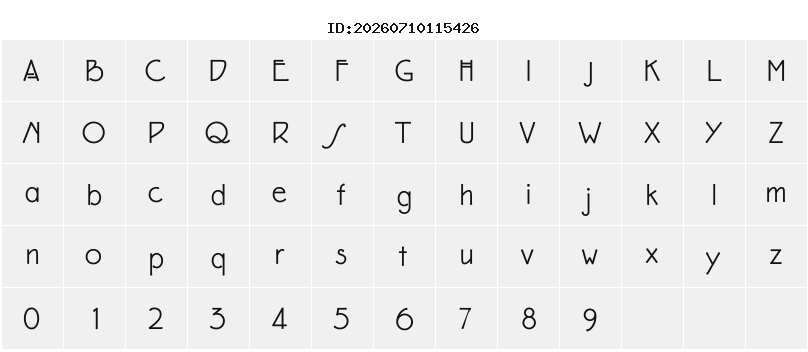
EaglefeatherVlbold Preview
• Font Name: EaglefeatherVlbold
About EaglefeatherVlbold.ttf
EaglefeatherVlbold.ttf is a modern, elegant sans-serif font designed for ultimate readability and visual harmony. Perfect for branding, headlines, web design, and print materials.